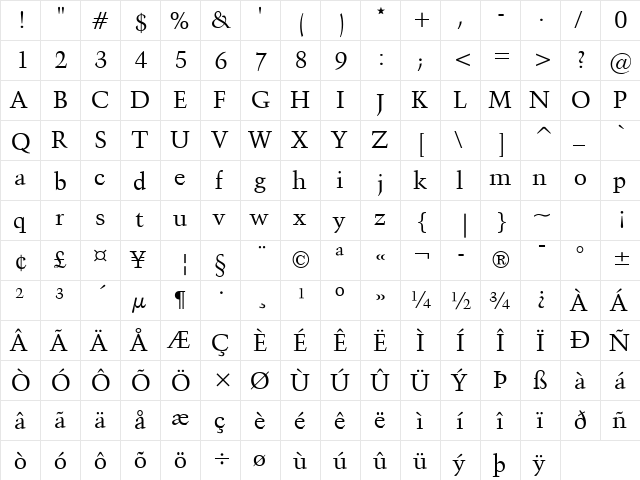
Congo Normal
Design Context for Congo Typeface
Congo is a composed and adaptable typeface that performs quietly and consistently across a wide range of design contexts.